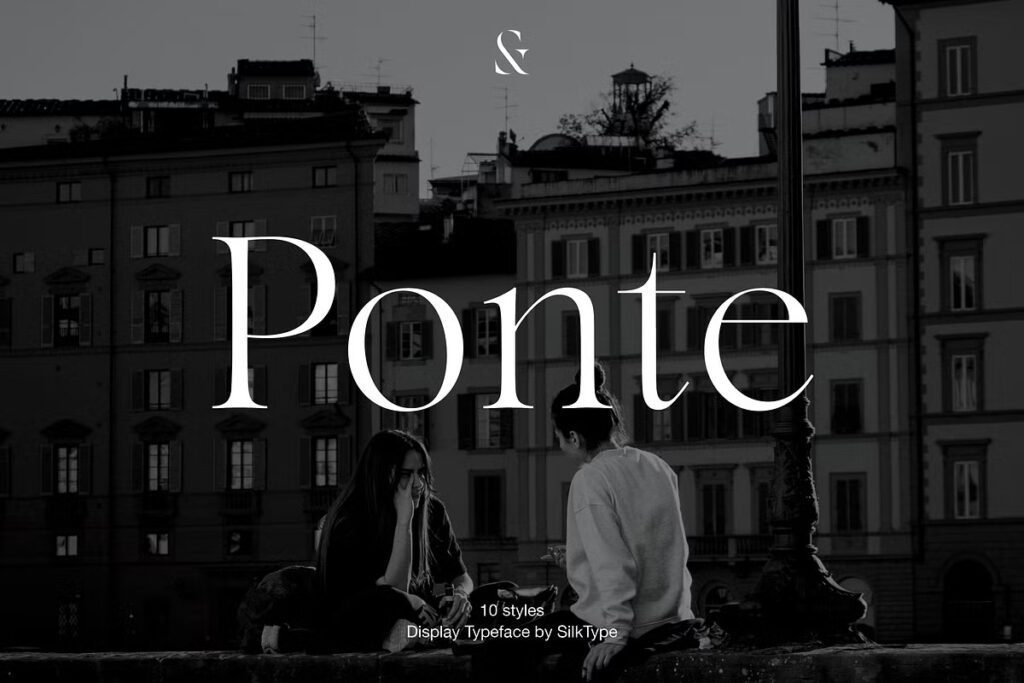
Discover the Ponte Font Family: Elevate Your Design Projects
If you’re looking for a sophisticated typeface that makes a statement, look no further than the Ponte Font Family. This high-contrast display typeface, featuring smooth serifs, is perfect for impactful headlines and elegant design applications.
Why Choose Ponte?
The Ponte Font Family includes ten distinct styles, ranging from Extra Light to Bold, providing versatile options for any project. With over 80 decorative ligatures, this typeface allows for unique typographic creativity that can elevate your branding, websites, or print materials.
Whether you’re crafting eye-catching headlines or designing elegant invitations, Ponte delivers the aesthetic you need. Its combination of roman and italic styles in various weights ensures that your text stands out while maintaining readability.
Perfect for Any Project
The Ponte typeface is ideal for:
Branding and logo design
Editorial layouts
Event invitations
Website headlines
Marketing materials
Elevate your design with the Ponte Font Family and explore the possibilities it offers.